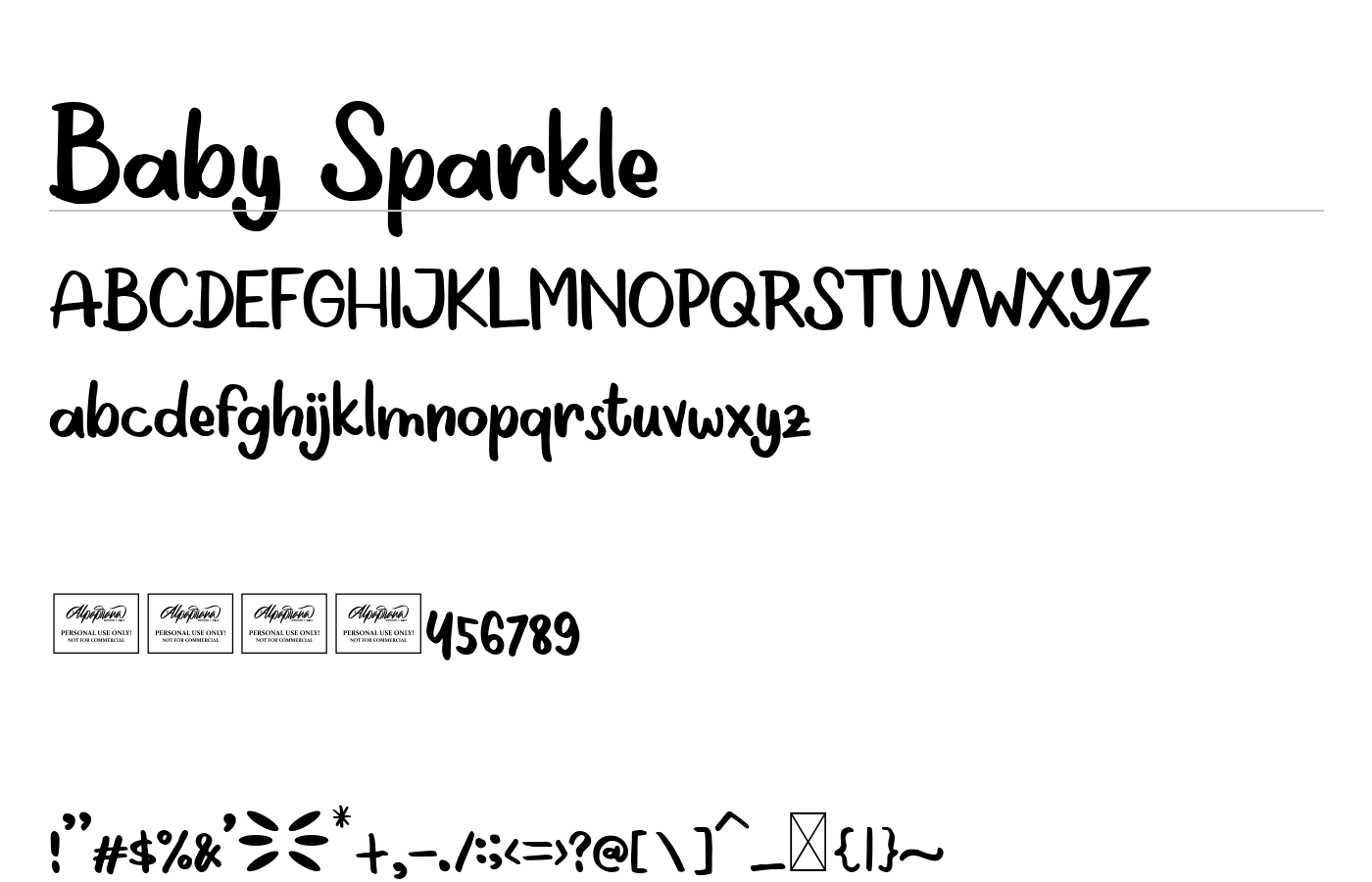
Baby Sparkle is a playful and friendly handwritten sans serif font with a casual, rounded style that feels warm and inviting. Its slightly irregular letterforms and moderate x-height give it a charming, approachable personality perfect for kids’ designs, informal projects, and fun branding. This font works well in headlines, invitations, and packaging where a touch of whimsy and cheerfulness is desired.
Baby Sparkle Font
About Baby Sparkle Font
| Font family | Baby Sparkle Font |
| Designer | Alpaprana |